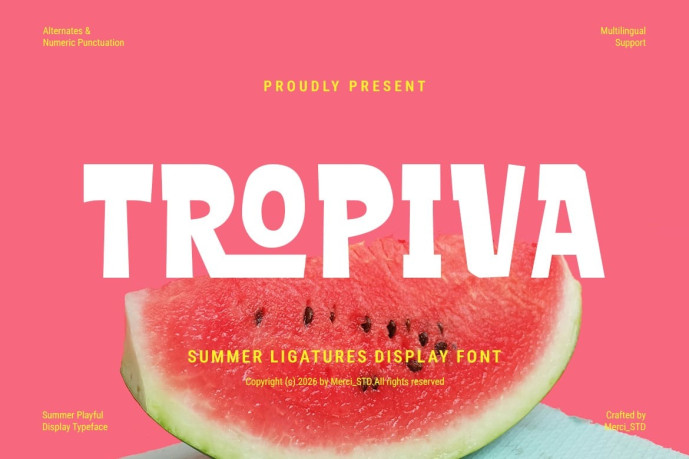
Tropiva Font
Tropiva Font is a playful summer display typeface with unique ligatures and bold character shapes. Designed to bring energy and fun to creative projects, it’s perfect for seasonal promotions, packaging, social media graphics, event materials, children’s themes, and holiday-inspired branding.